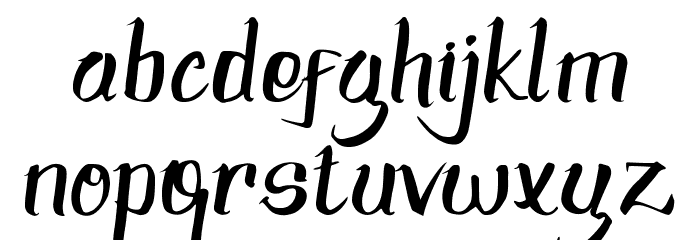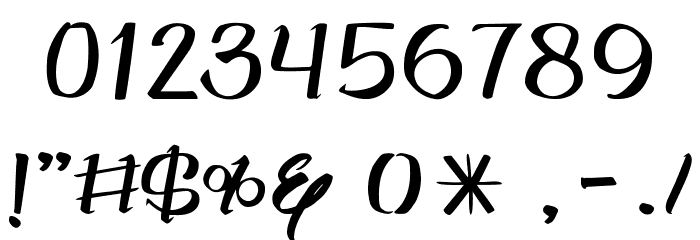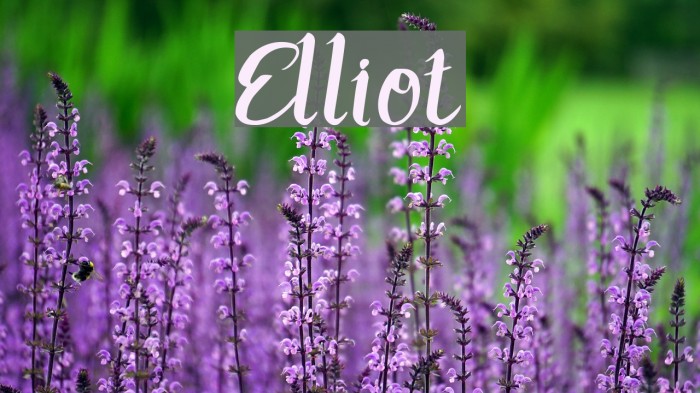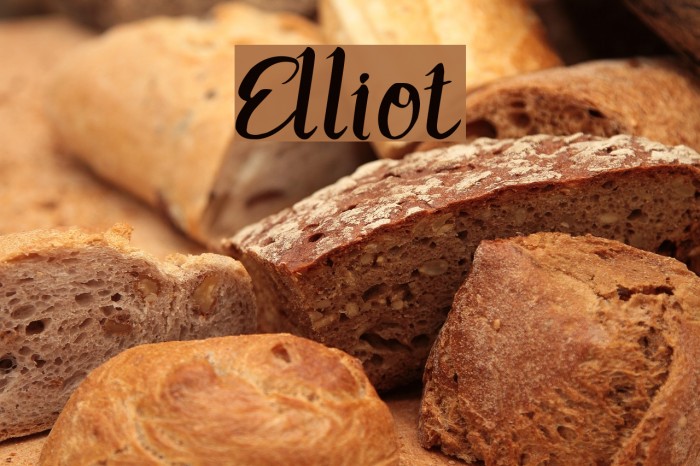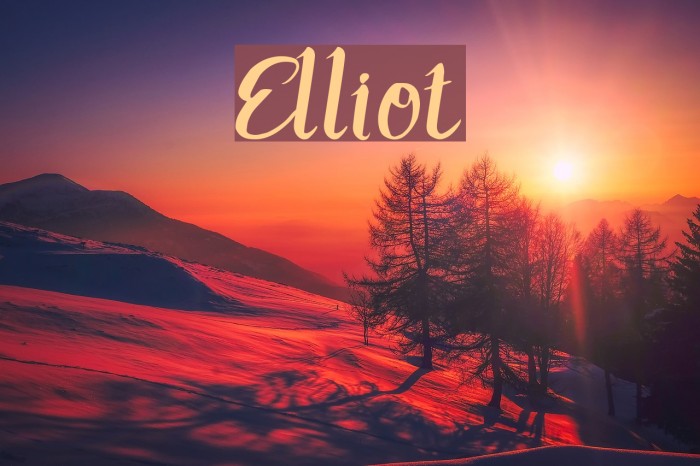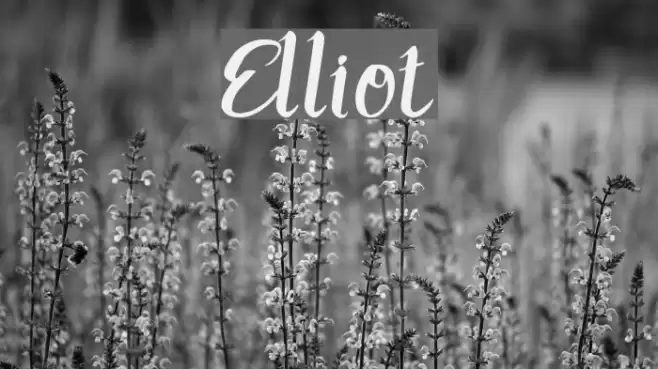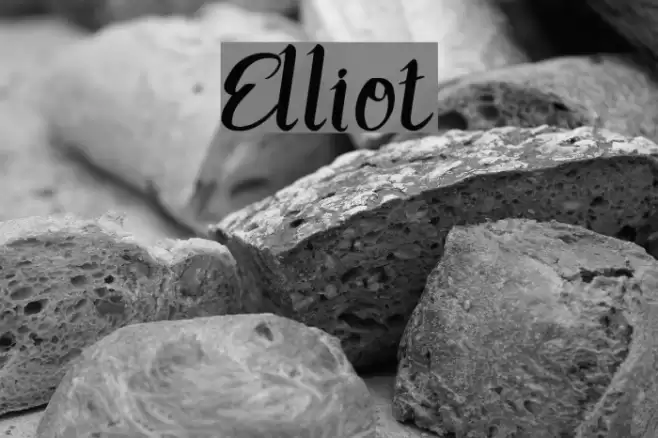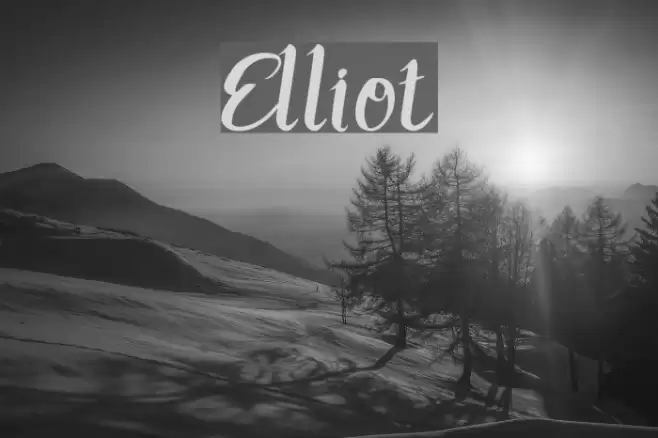
Elliot Font
This font features a dynamic and flowing script style, characterized by its elegant and cursive letterforms. The uppercase letters exhibit a bold and confident presence, with sweeping curves and distinctive flourishes that add a sense of movement and grace. The lowercase letters maintain a consistent style, offering a harmonious blend of rounded and angular elements. The numerals are clear and legible, with a slight slant that complements the overall script aesthetic. Special characters are creatively designed, incorporating unique twists and loops that enhance the decorative appeal. This font is well-suited for projects that require a touch of sophistication and artistic flair.
A dynamic and flowing script font with elegant cursive letterforms.
- Proposed Projects: Ideal for wedding invitations, greeting cards, branding, and logo design.
- Use Case: Logos, Invitations, Decorative text